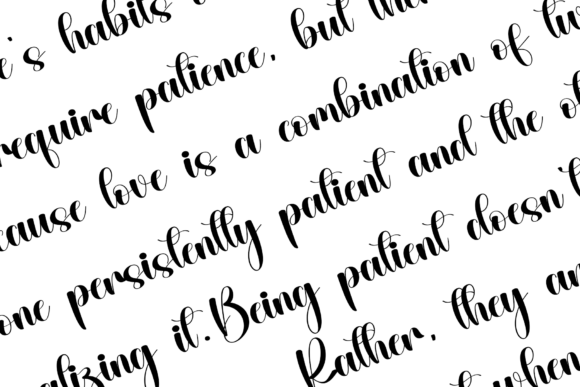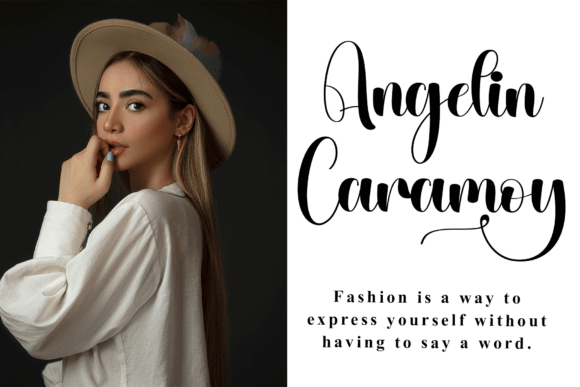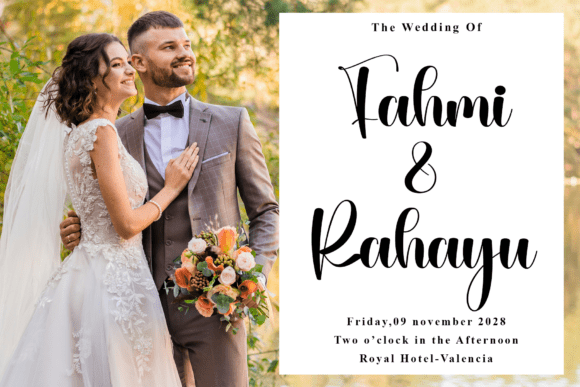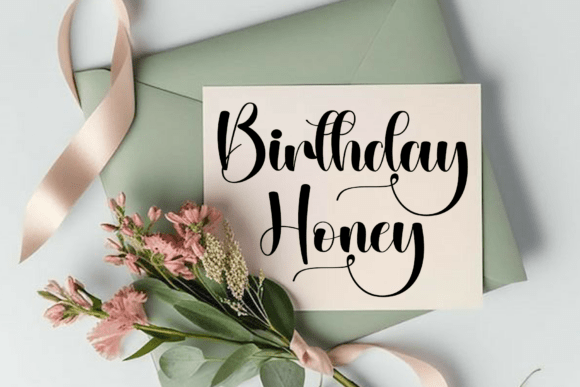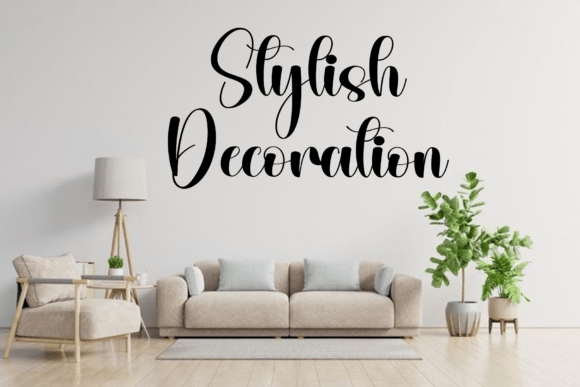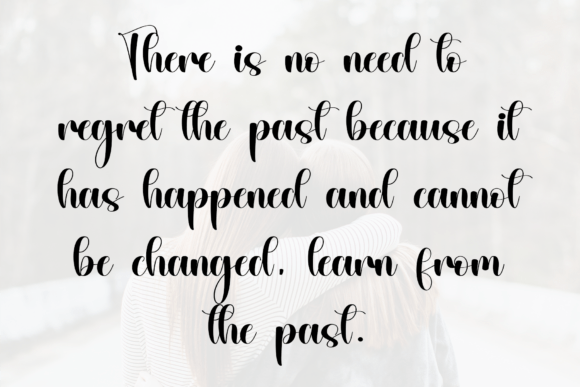
Introducing Friendly Font: The Modern Handwritten Script Font for Creative Designs
In the world of typography, a font can make all the difference in the success of a design project. A well-crafted font can elevate your creative work, adding a touch of personality and elegance that sets it apart from the rest. This is where Friendly Font comes in – a modern handwritten script font that embodies warmth, elegance, and a dash of playfulness. With its unique blend of flowing strokes, smooth curves, and stylish swashes, Friendly Font is the perfect choice for designers and crafters looking to add a personal touch to their projects.
The Characteristics of Friendly Font
Friendly Font boasts a range of characteristics that make it an ideal choice for a wide variety of creative projects. Its thick downstrokes and playful loops give it a welcoming, handcrafted feel that’s perfect for designs that require a personal touch. The font’s smooth curves and flowing strokes add a sense of elegance and sophistication, making it suitable for more formal projects as well. Additionally, Friendly Font comes with a range of stylish swashes and alternate characters, allowing you to customize your designs with ease.
Perfect for a Wide Range of Creative Projects
Whether you’re designing for personal branding, wedding stationery, social media posts, product packaging, or heartfelt quotes, Friendly Font is the perfect choice. Its unique blend of charm and professionalism makes it an versatile font that can be used in a wide range of applications. For designers and crafters, Friendly Font offers a chance to add a touch of joy and elegance to every letter, making your designs stand out from the crowd.
What Makes Friendly Font Stand Out?
So, what sets Friendly Font apart from other fonts on the market? For starters, its modern handwritten style is both approachable and elegant, making it perfect for designers who want to add a personal touch to their work. The font’s PUA-encoding also makes it easy to access all glyphs, swashes, and alternate characters, allowing you to customize your designs with ease. Additionally, Friendly Font is part of a modern handwritten collection crafted to help your designs stand out with a unique, approachable style.
Key Features of Friendly Font
- Modern Handwritten Style: Friendly Font boasts a modern handwritten style that’s both elegant and approachable.
- PUA-Encoded: The font is PUA-encoded, making it easy to access all glyphs, swashes, and alternate characters.
- Stylish Swashes: Friendly Font comes with a range of stylish swashes and alternate characters, allowing you to customize your designs with ease.
- Thick Downstrokes and Playful Loops: The font’s thick downstrokes and playful loops give it a welcoming, handcrafted feel.
- Smooth Curves and Flowing Strokes: Friendly Font’s smooth curves and flowing strokes add a sense of elegance and sophistication.
In conclusion, Friendly Font is a modern handwritten script font that’s perfect for designers and crafters looking to add a personal touch to their creative projects. With its unique blend of charm and professionalism, Friendly Font is an versatile font that can be used in a wide range of applications. Its range of stylish swashes and alternate characters, combined with its PUA-encoding, make it easy to customize and use in your designs. So why not give Friendly Font a try and see how it can elevate your creative work?